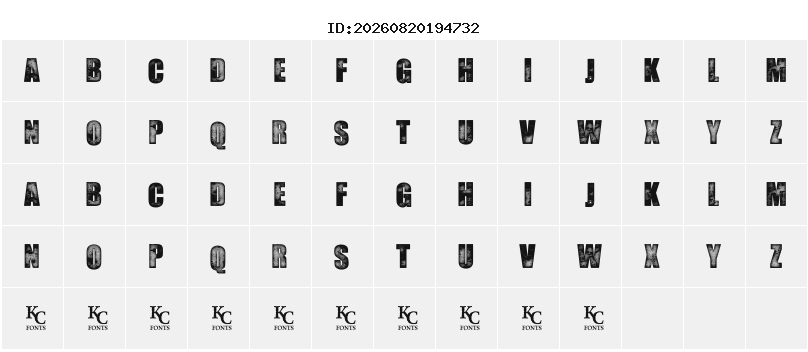
Seedy Motel Preview
• Font Name: Seedy Motel
• Full Font Name: Seedy Motel DEMO
• Designer: Kevin Christopher
About Seedy Motel.ttf
Seedy Motel.ttf is a modern, elegant sans-serif font designed for ultimate readability and visual harmony. Perfect for branding, headlines, web design, and print materials.